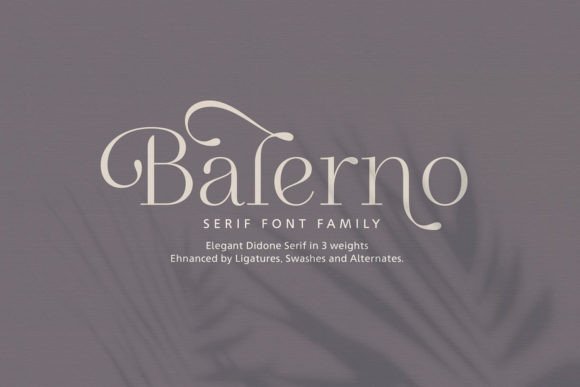
Are you on the hunt for the best fonts for modern website design? Look no further than Balerno Font by My Creative Land! This versatile serif font family seamlessly blends classic forms with modern writing techniques to give your design projects a unique and elegant touch.
But don't let its classic style fool you – Balerno is a font that can do it all. From greeting cards to magazines, wedding invitations, and beyond, Balerno can cover a wide range of design projects with ease. And with its PUA encoding, accessing all of the delightful glyphs and swashes has never been easier.
So why should you download Balerno Font? For starters, its adaptability means that it can work for any project, giving your design a professional and polished look. And with its classic yet modern style, Balerno Font will make your designs stand out from the crowd.
But Balerno Font isn't just about looks – it's about emotions too. With its elegant and sophisticated style, Balerno evokes feelings of luxury, refinement, and exclusivity. Imagine using Balerno Font for your wedding invitations – the result would be nothing short of breathtaking.